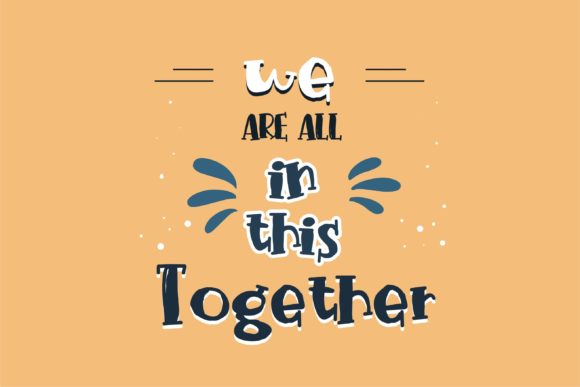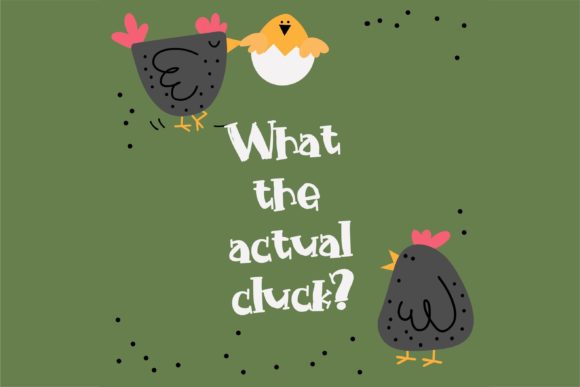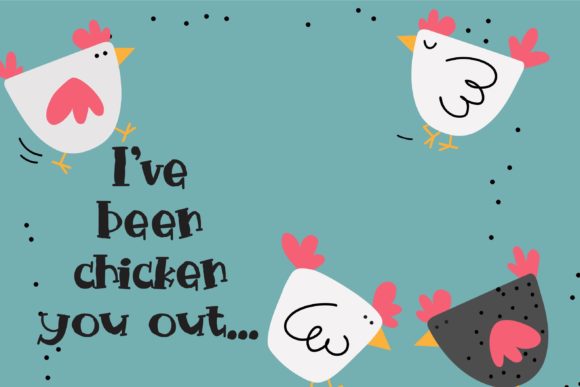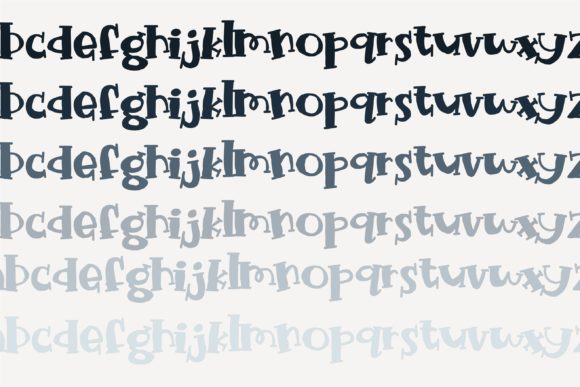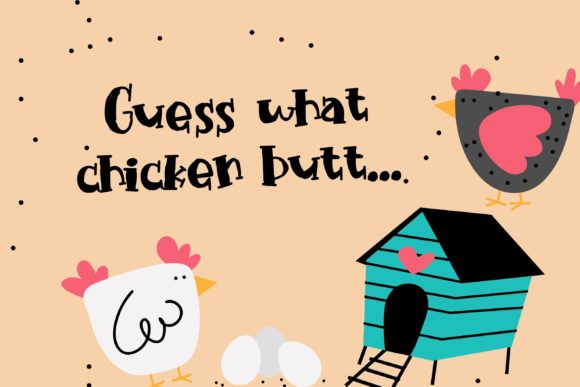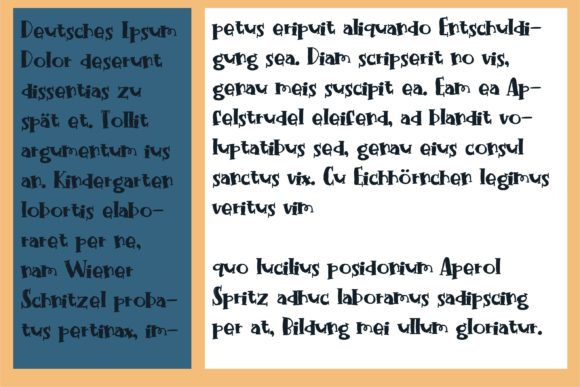
Introduction to Hilation Font
Hilation is a quirky and chic display font.
It is perfect for any branding project such as logos, t-shirt printing, creative products, and more .
Key Features of Hilation Font
Why Choose Hilation Font?